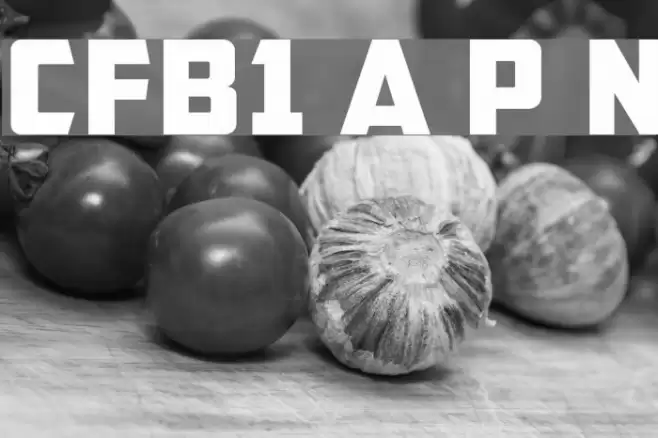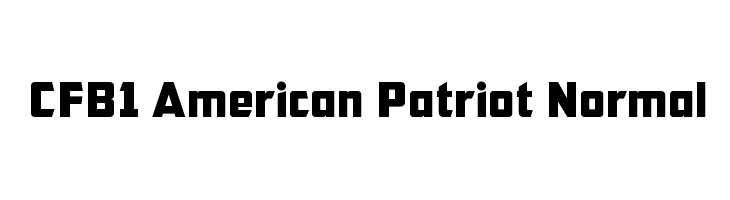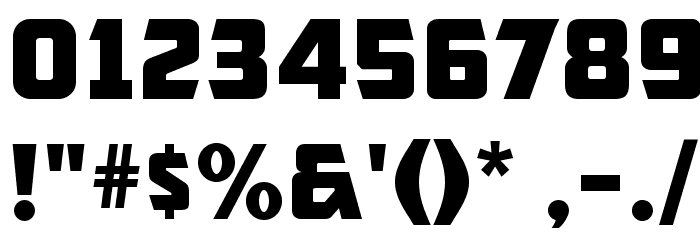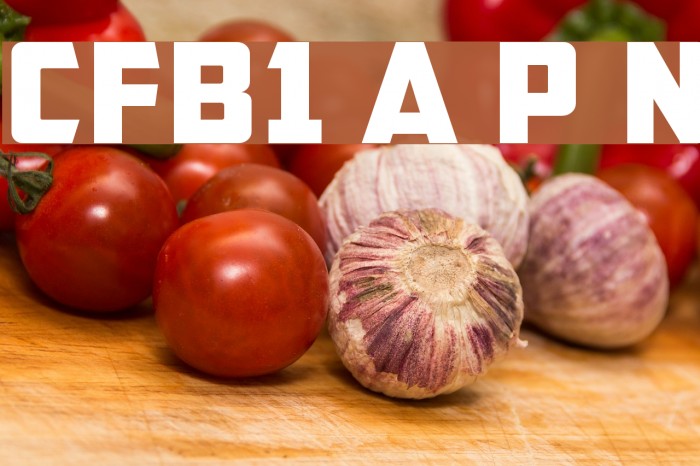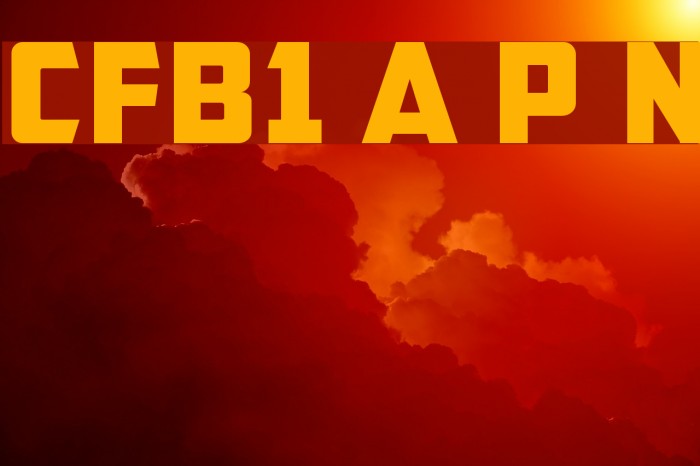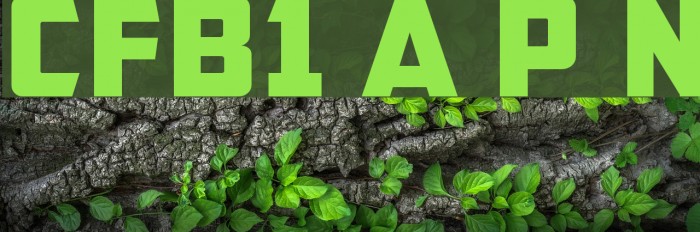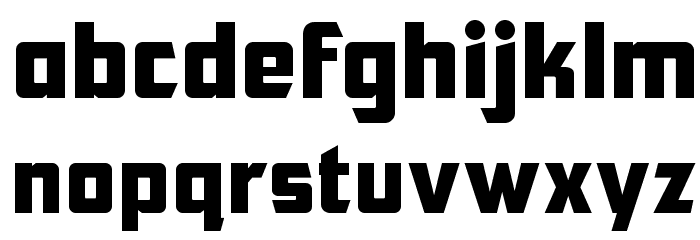
CFB1 American Patriot Normal Font
CFB1 American Patriot Normal Description
This font features a bold and robust design, characterized by thick, blocky letters that convey strength and stability. The uppercase and lowercase letters maintain a consistent width, giving the font a uniform appearance. The numbers and special characters follow the same bold style, ensuring a cohesive look across all elements. The font's geometric shapes and sharp angles contribute to its modern and assertive aesthetic, making it suitable for impactful and attention-grabbing designs.
A bold, geometric font with a strong, modern aesthetic from Decorative fonts.
- Proposed Projects: Ideal for posters, headlines, branding, and any project requiring a strong visual impact.